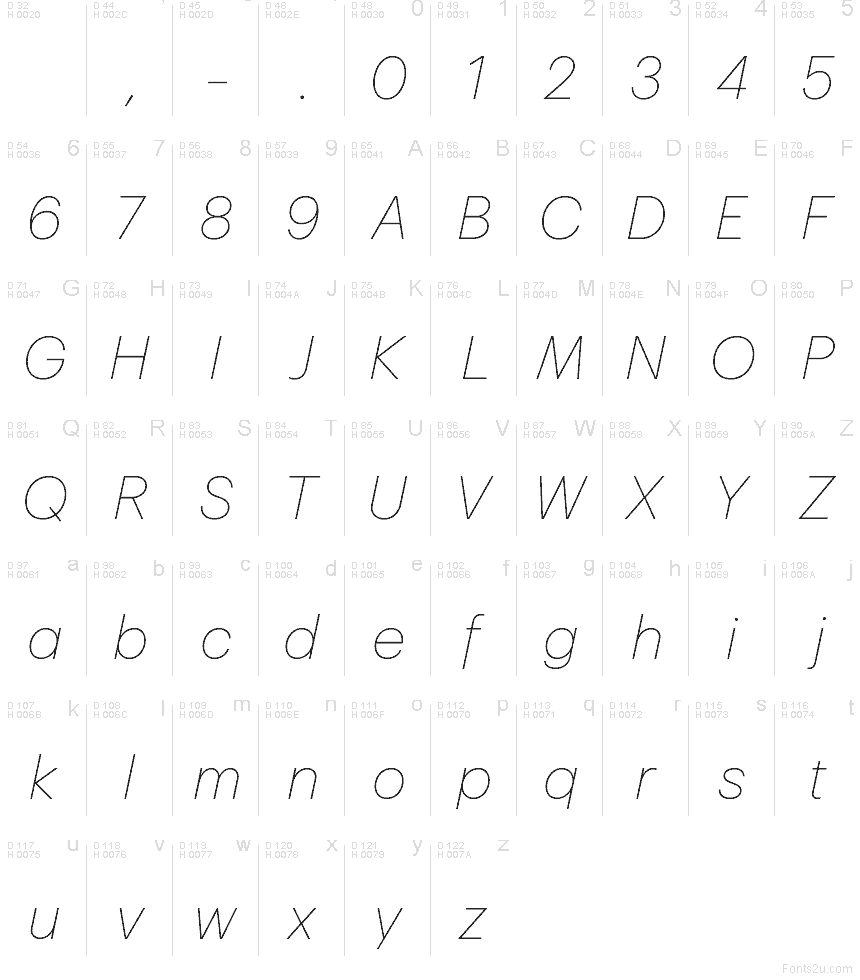
Encamp Test Thin Italic
Encamp Test Thin Italic font by Punchform is a free sans serif typeface that steps in when you need emphasis without weight. Its ultra-fine strokes, relaxed slant, and clear, open spacing give text a quiet urgency instead of a shout, adding nuance while keeping layouts airy and modern. The rhythm feels precise yet effortless, like a pencil note in the margin—present, but never overpowering.
Using Encamp Test Thin Italic, this free font shines on minimalist posters, editorial captions, fashion branding, portfolio sites, product packaging, and subtle UI labels or microcopy. It works beautifully when set a little larger than your main text so those hairline forms stay crisp. For a balanced system, pair it with a sturdier upright sans—such as the regular weight of the Encamp Test family—for body copy and navigation.